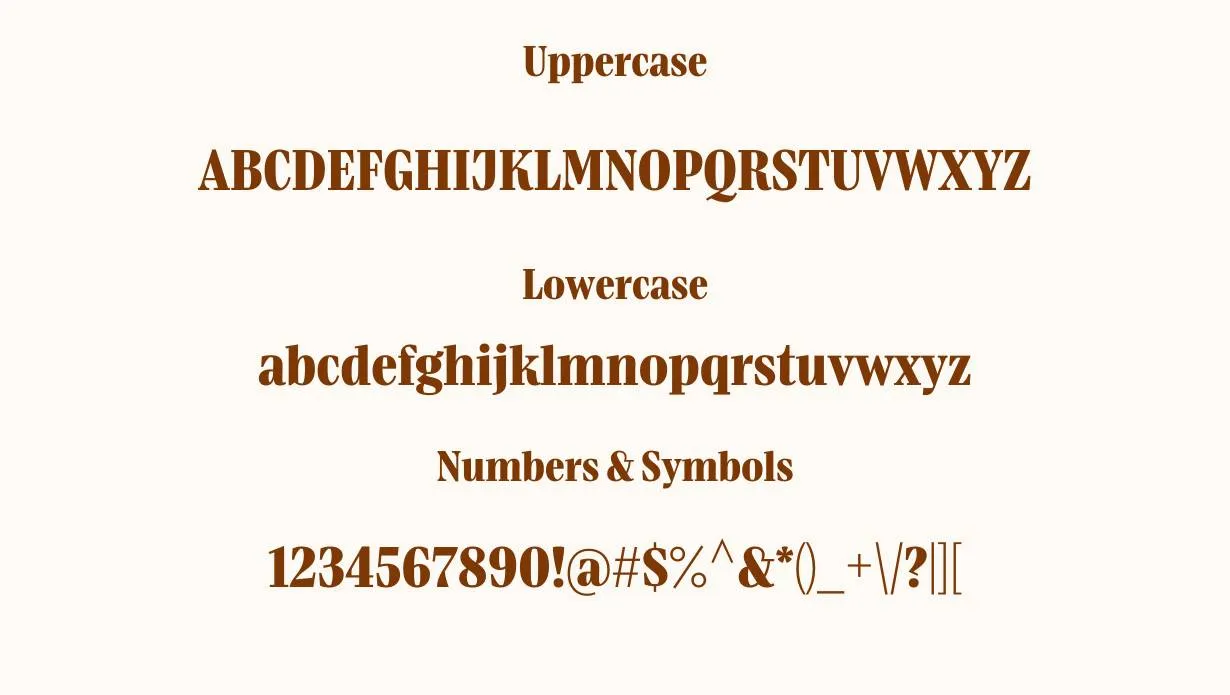
The Bridge Head font is a timeless and bold typeface that is commonly used in designs that aim to make a strong and impactful statement. Its strong and authoritative letters give off a sense of authority and timelessness.
This font is often used in headlines, posters, or branding materials. The weight of the Bridge Head font is usually bold, ensuring a robust and striking presence.